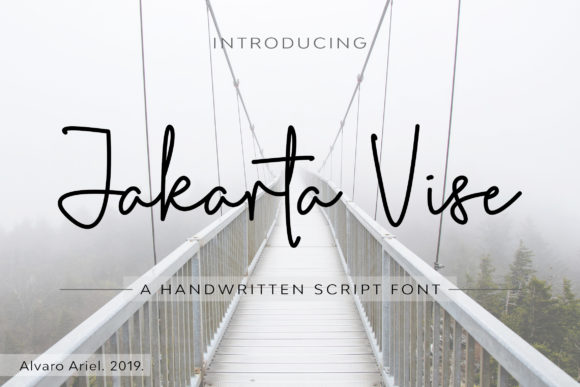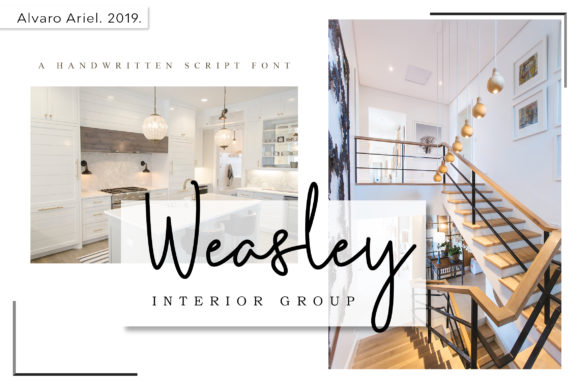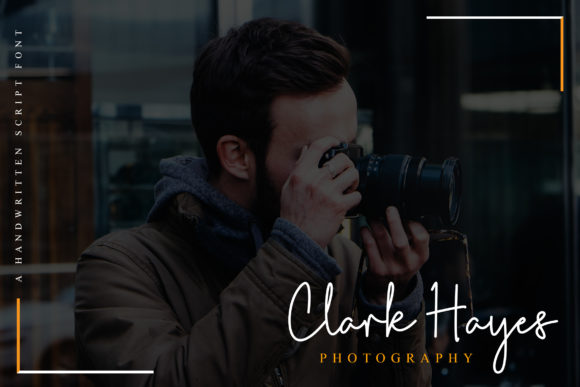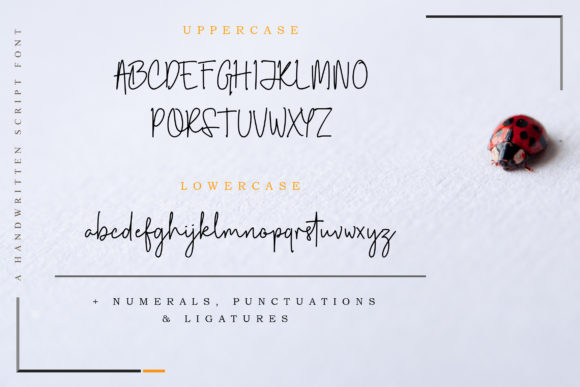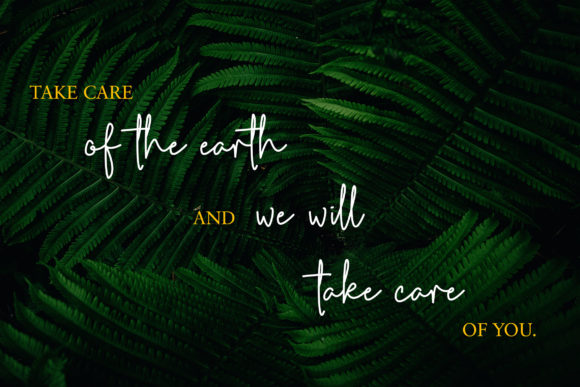
HomeScript FontsJakarta Vise Font Script Fonts Jakarta Vise Font FacebookXPinterestWhatsApp Jakarta Vise Font Poster 2 Jakarta Vise Font Poster 3 Jakarta Vise Font Poster 4 Jakarta Vise Font Poster 5 About Jakarta Vise Font Jakarta Vise is a simple, yet elegant script with a unique style. DOWNLOAD NOW People also explored Jesuit Font Austin Holiday Font The Dunken Font Amsterdam Signature Font Child Witch Monster Bones Font Vazeelia Font Dealova Script Font Derllina Font 273 0 TagsJakarta Vise Font Previous articleAustralia FontNext articleAmelia Script Font LEAVE A REPLY Cancel reply Comment: Please enter your comment! Name:* Please enter your name here Email:* You have entered an incorrect email address! Please enter your email address here Website: Save my name, email, and website in this browser for the next time I comment. Personal Use Free Eigha Personal Use Free Read more about this font The 10 Best Handwriting Fonts to Add Personality to Your Designs Blog Read more about this font Geuli Font Personal Use Free Read more about this font Historise Personal Use Free Read more about this font BLOG To increase your work productivity, choose the most readable fonts. In today's fast-paced work environment, where digital communication and information consumption are integral to our daily routines, the choice of fonts can significantly impact... Fonts That Capture the Spirit of New York City Top 7 Google Fonts Alternatives for Faster and Privacy-Friendly Web Design (2025) Best Fonts for YouTube Videos: Make Your Thumbnails Stand Out